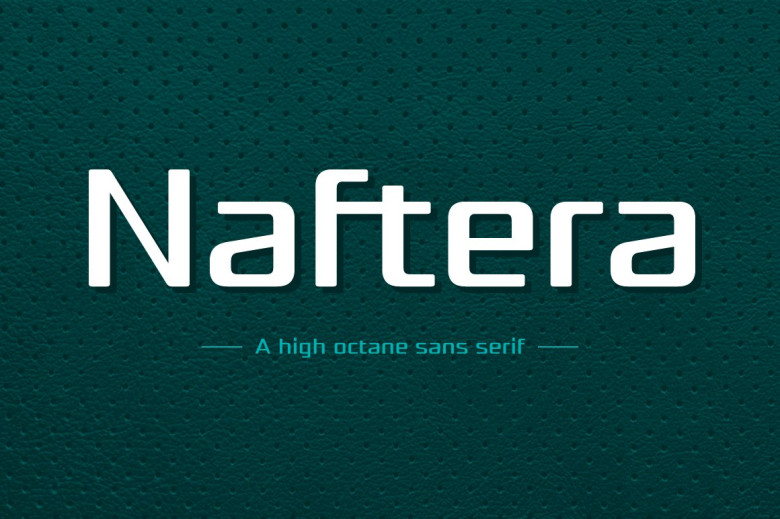
Naftera Font
Naftera font family has been designed for Graviton Font Foundry by Pablo Balcells in 2019. This geometric, mechanical sans serif font with display swashed characters and soft rounded end caps offers an elegant but tinny appearance, ideal for headlines, logos, display elements as well as short text blocks. Naftera comes in 10 styles, 8 contain small caps while two come completely free of charge!
Naftera Sans Serif Font Family